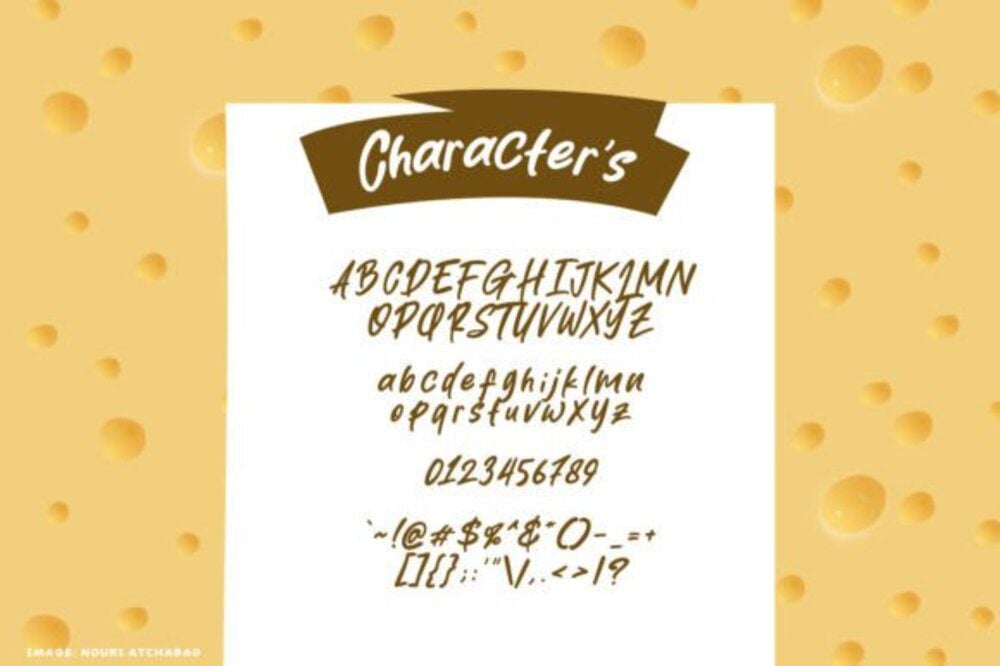
Bitcheese Font
Bitcheese is a bold, quirky font with a fun, cheeky attitude. Its chunky, playful letters and strong personality make it perfect for designs that need to stand out with a touch of humor. Whether used for logos, posters, or social media, Bitcheese adds a lively and edgy vibe to any project. With its unique charm, this font ensures your designs get noticed in a lighthearted, memorable way.